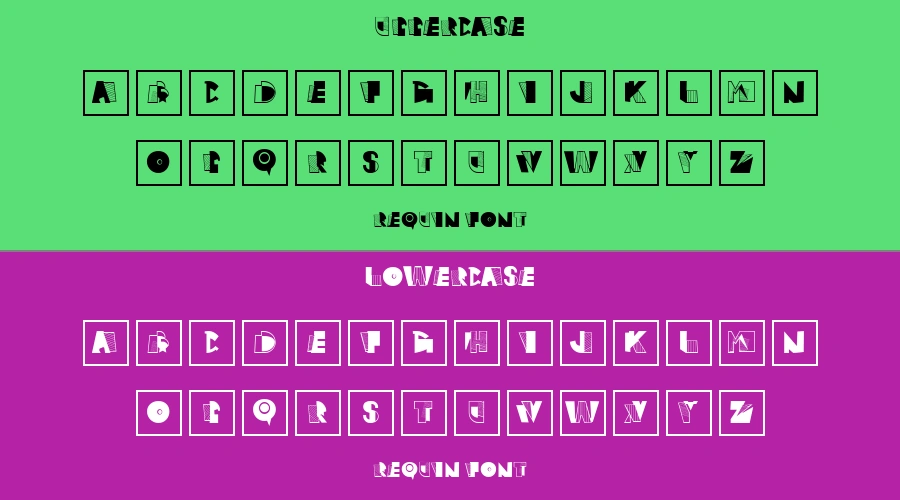
About Requin Font
Requin Font stands out for its distinctive combination of flourished entries and tradition. Ideal for government publications, it provides the clarity and aesthetic refinement that professional projects demand. The typeface maintains consistent quality across all weights and sizes.
Key features include refined systematic design and practical terminal characters, enhancing typographic expression. In formal invitations applications, Requin Font demonstrates exceptional scanning accuracy. The tail length and cultural references contribute to its distinctive character and professional appeal.